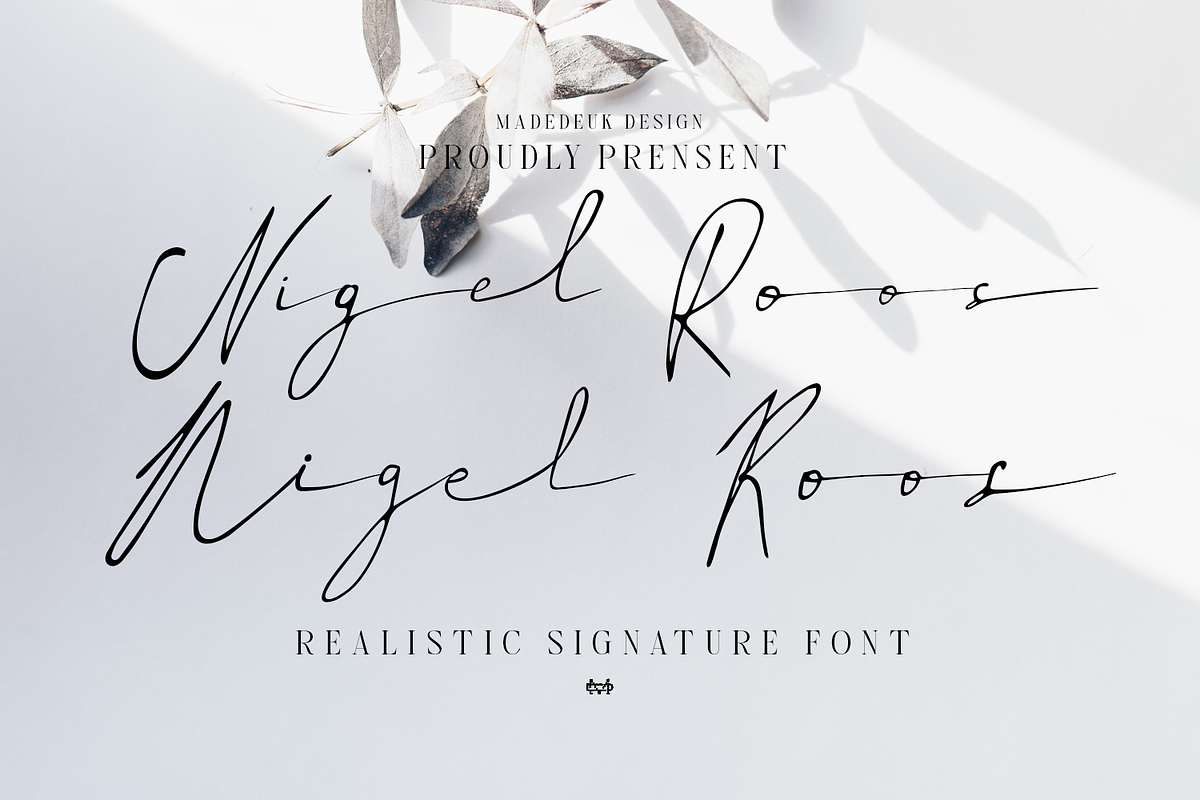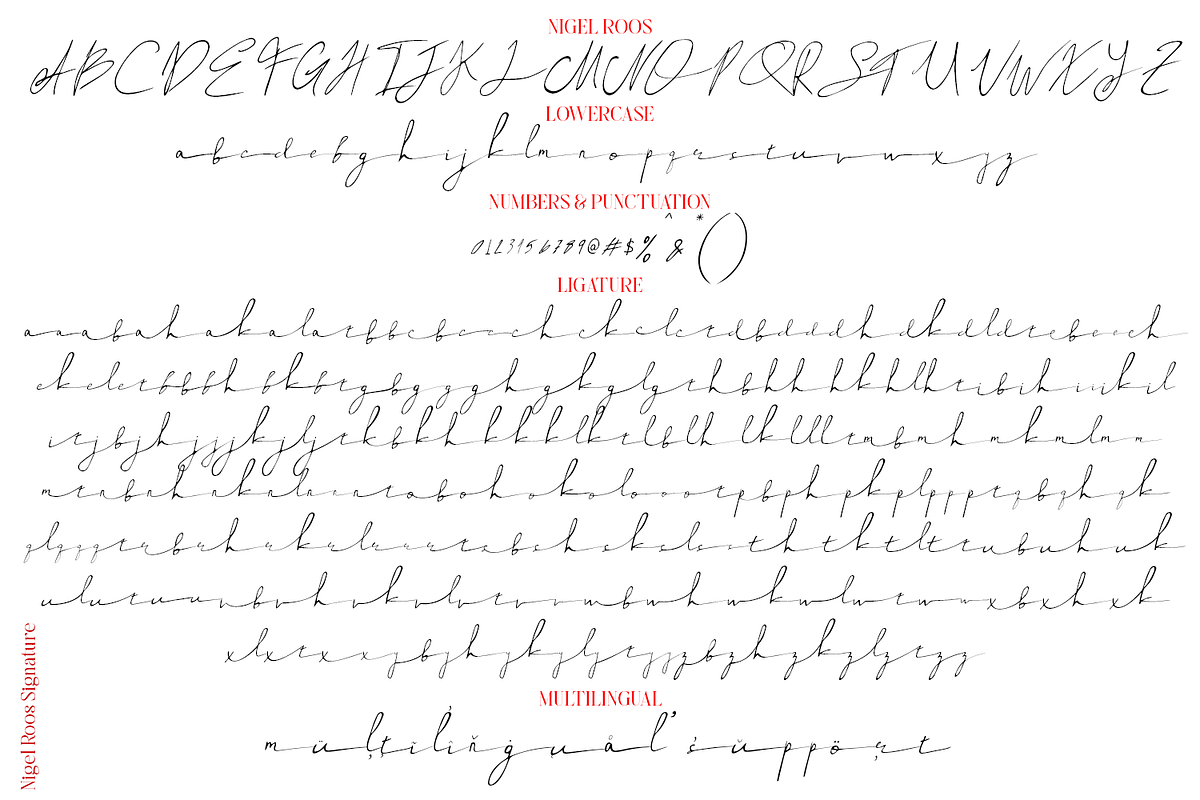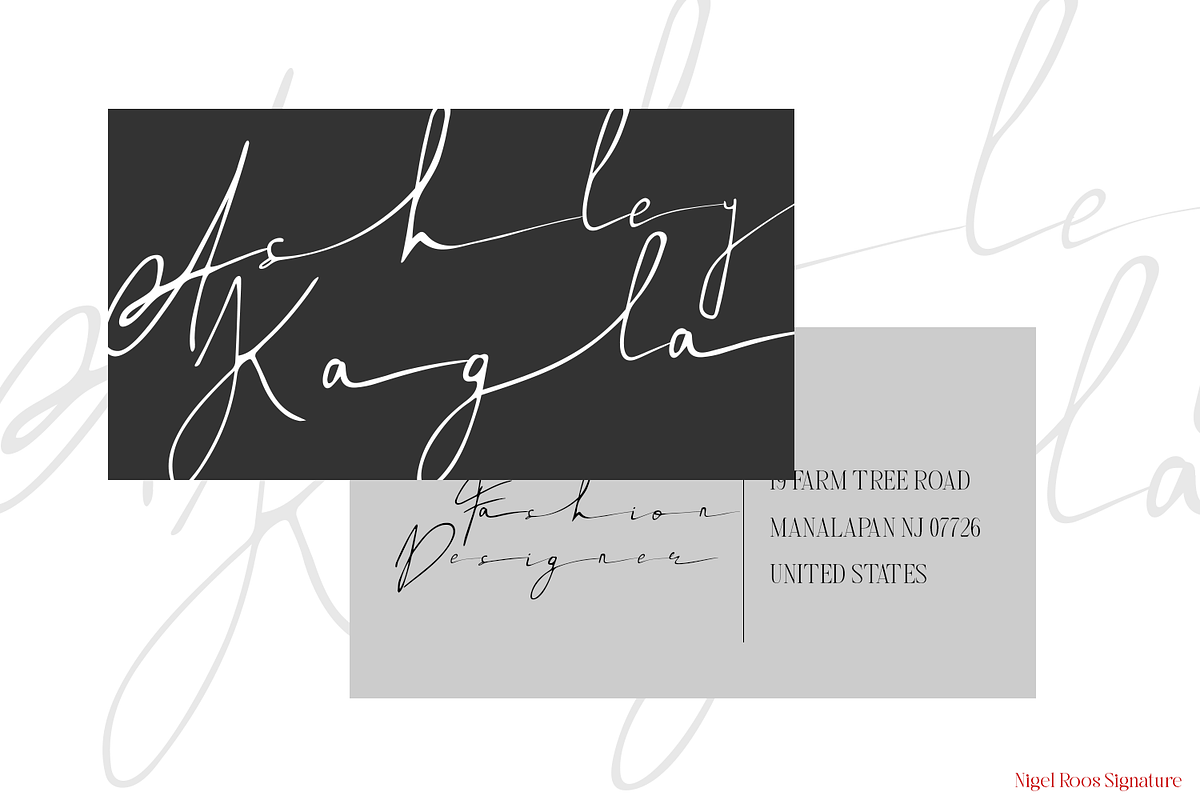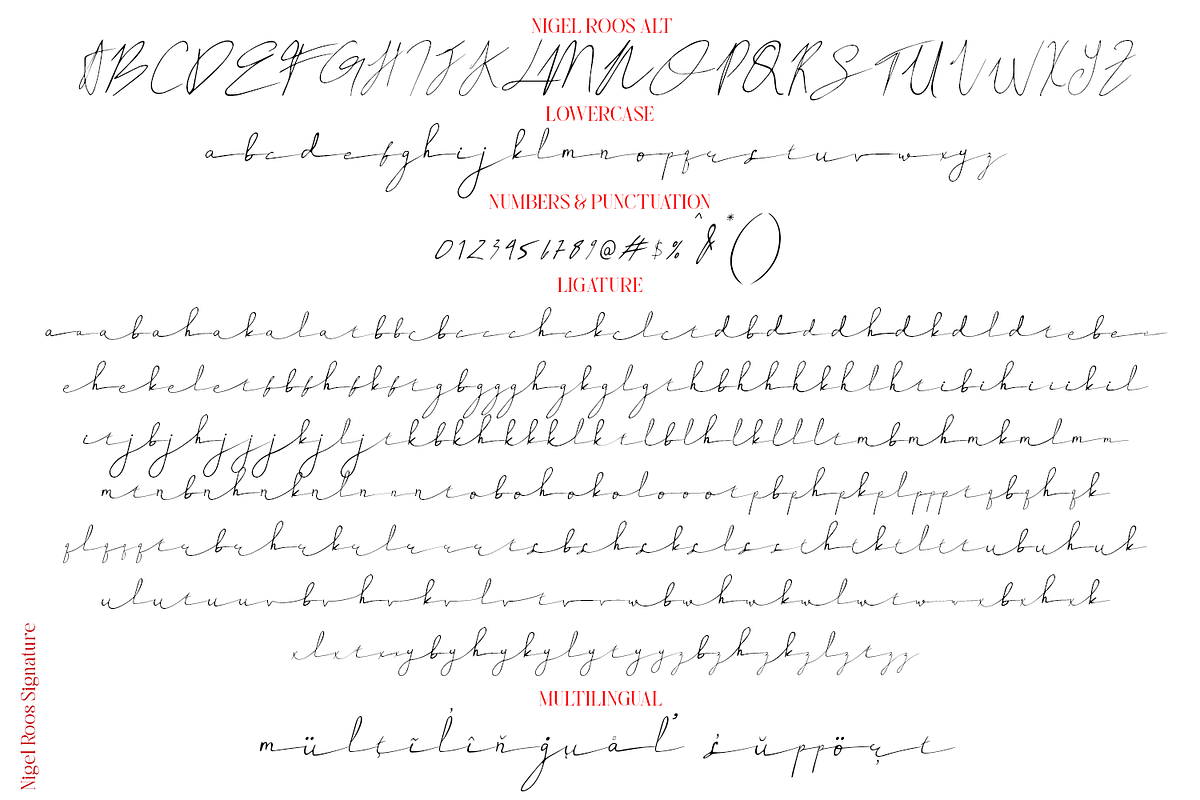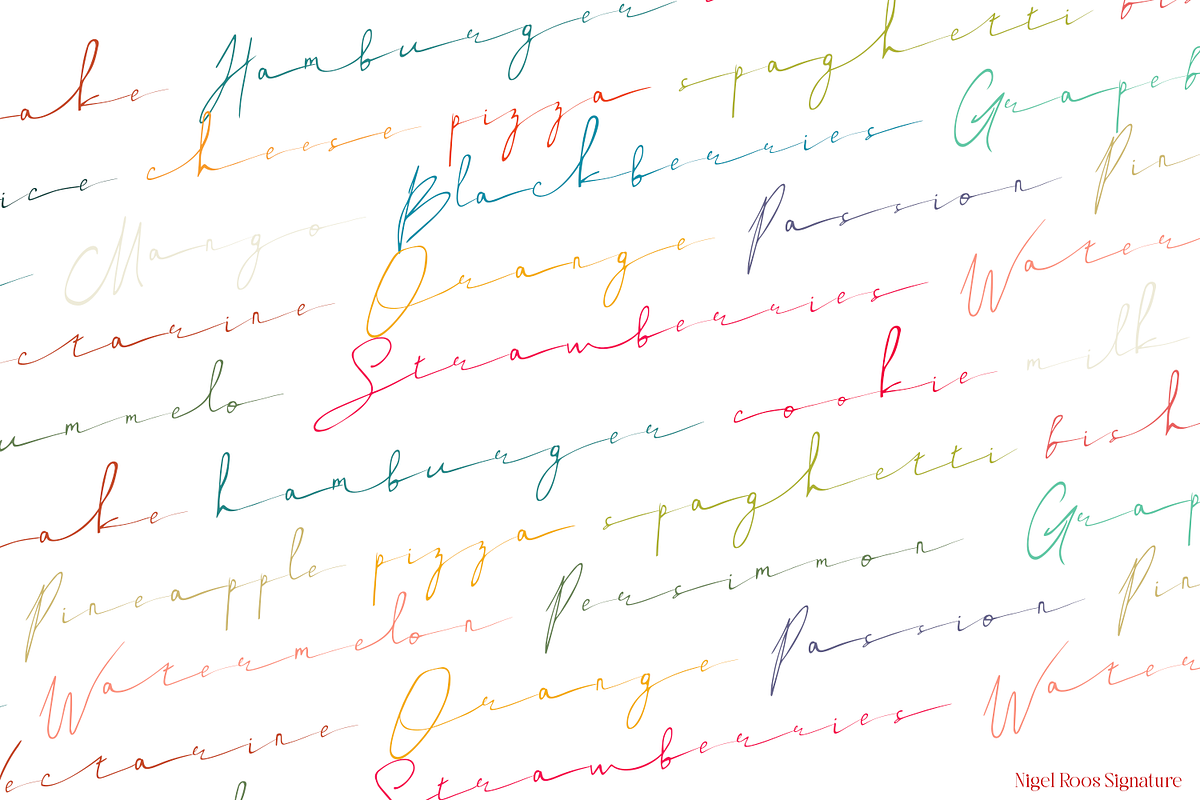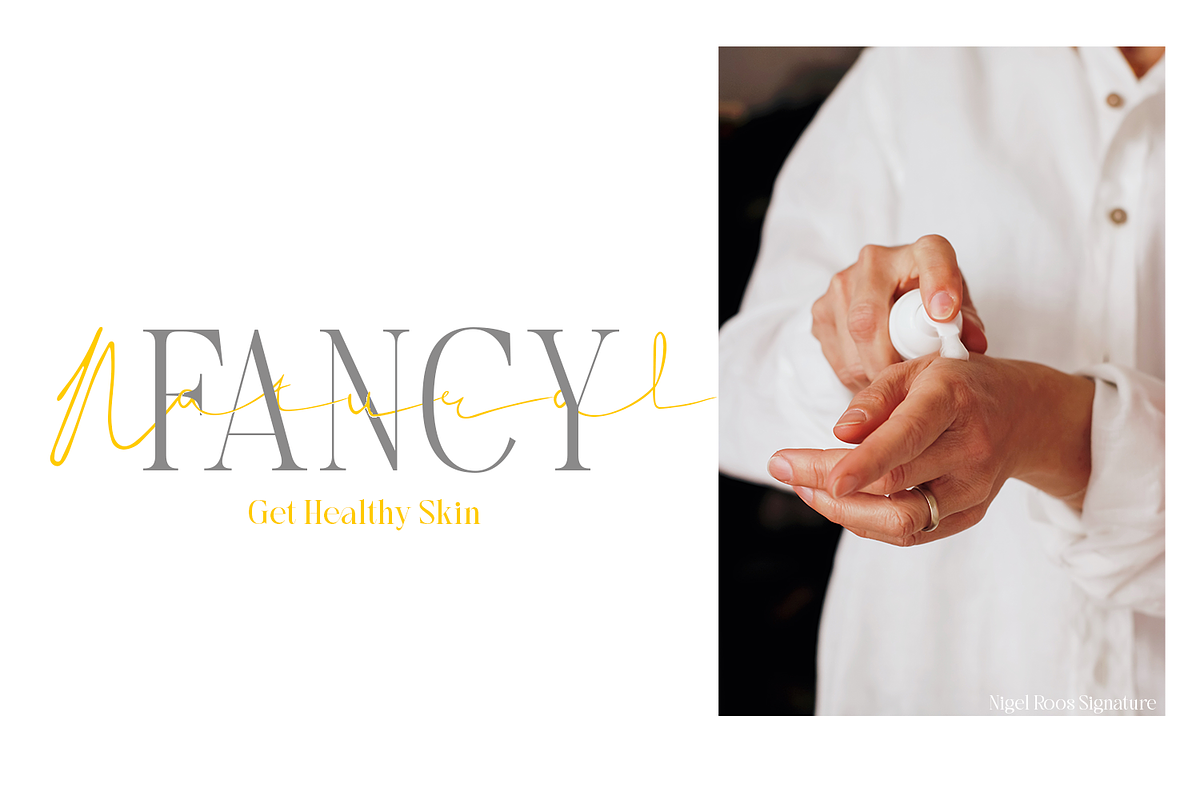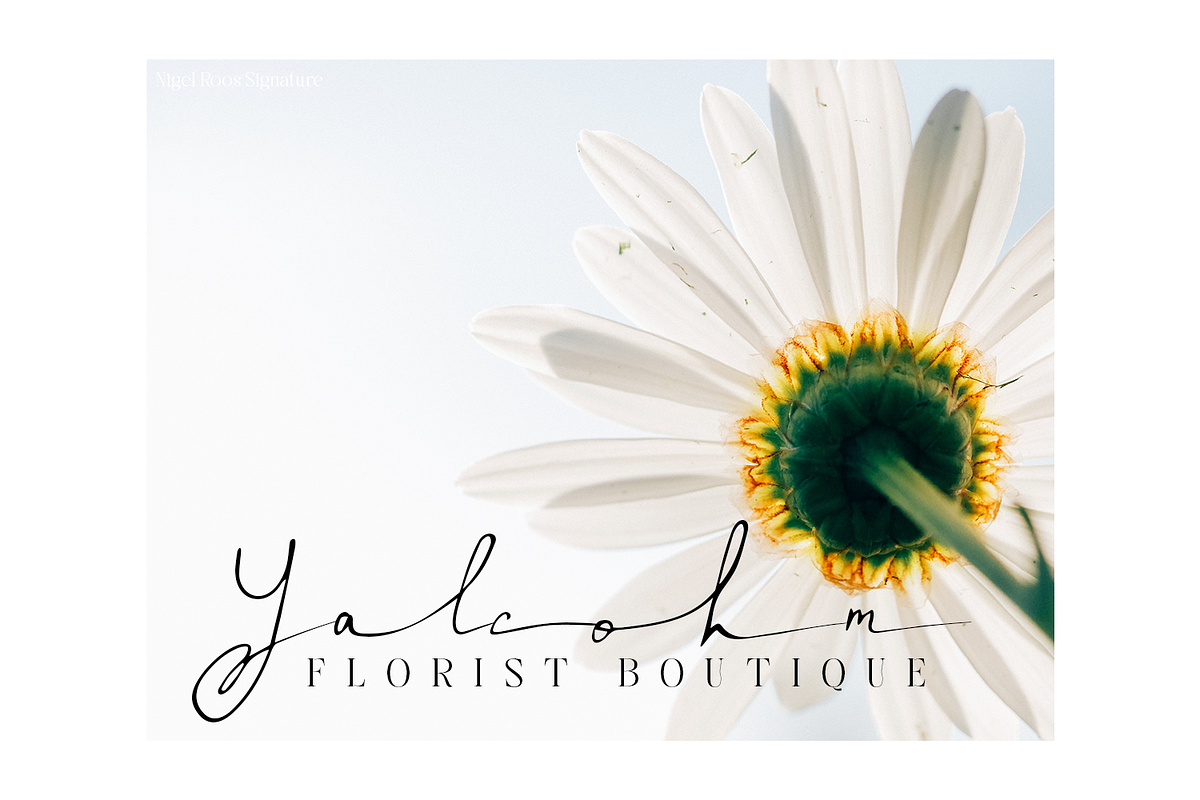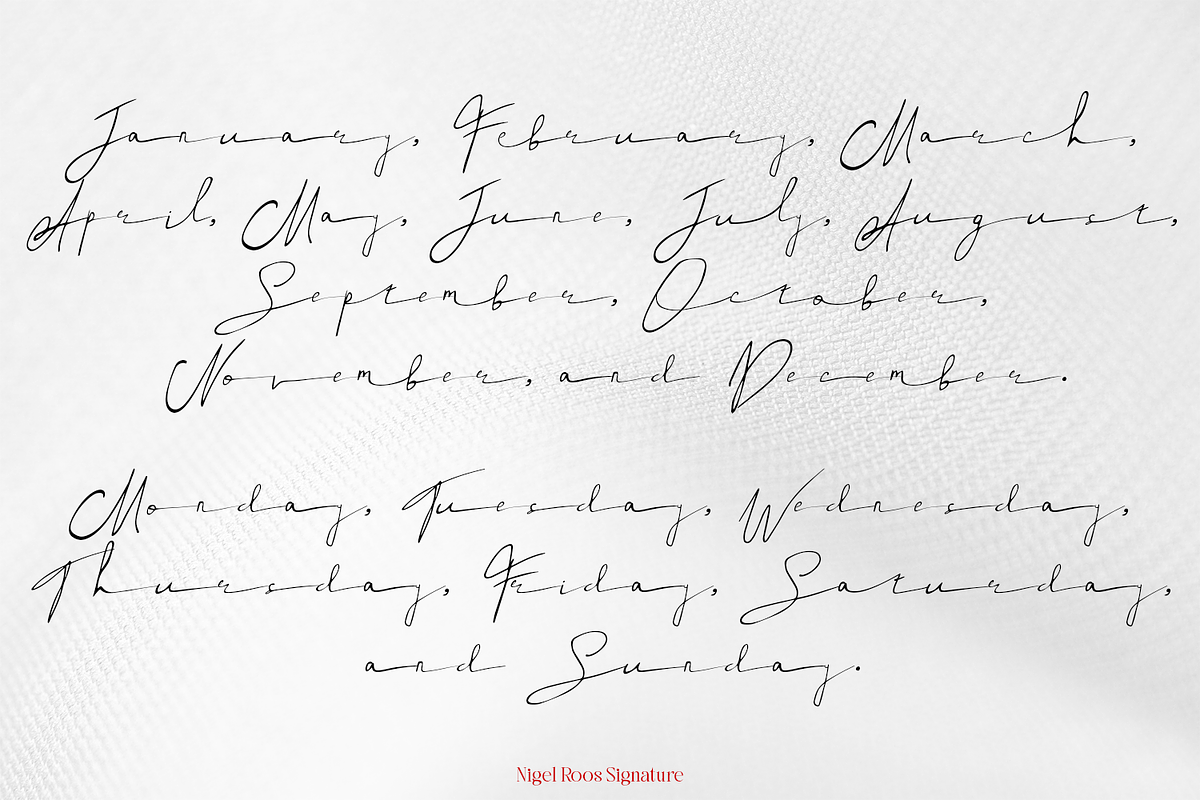
Nigel Roos Signature
Really excited to introduce Nigel Roos is a realistic signature to give a incredible impression for all your project design. Nigel roos come with two alternative with extra swashes and more than 140 ligatures in each font to make everything look realistic handmade signature.
- International Glyphs